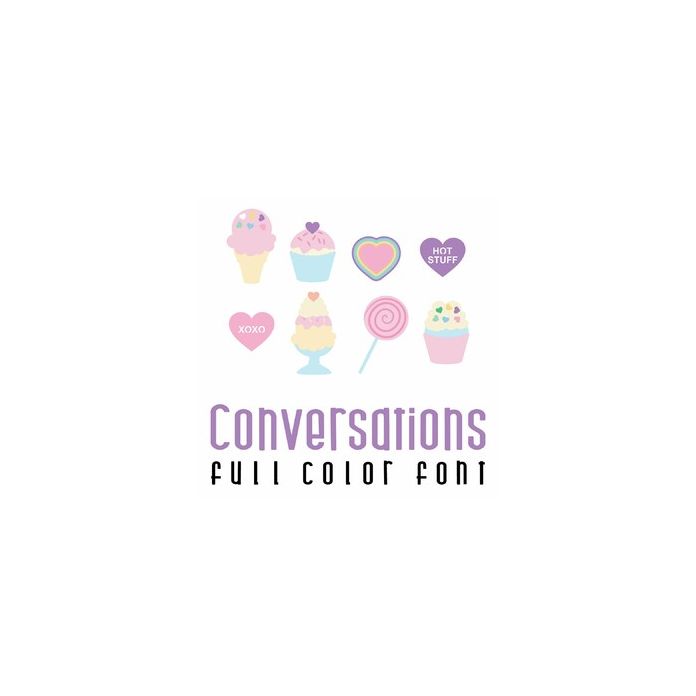
This adorable full-color doodlebat font features Valentine's candies and treats. Perfect for cards, crafts, gifts, decor, scrapbook pages, planner stickers, and more!